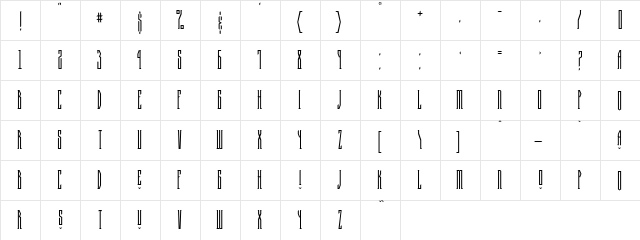
Halfway House
Design Context for Halfway Typeface
Halfway is a composed and adaptable typeface that performs quietly and consistently across a wide range of design contexts.